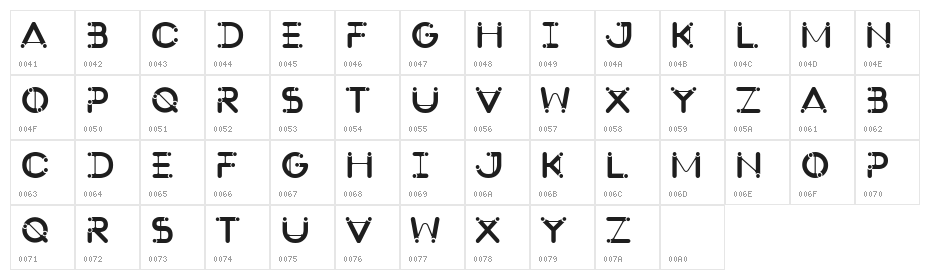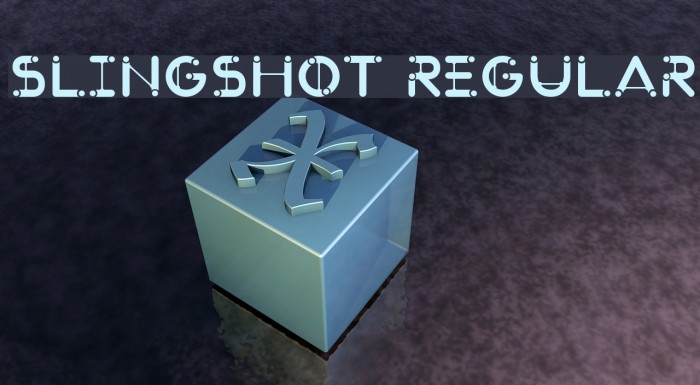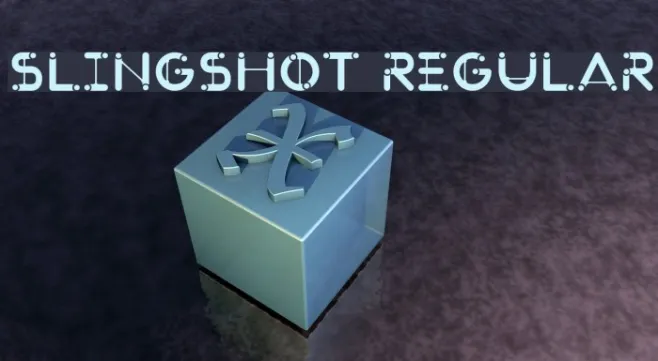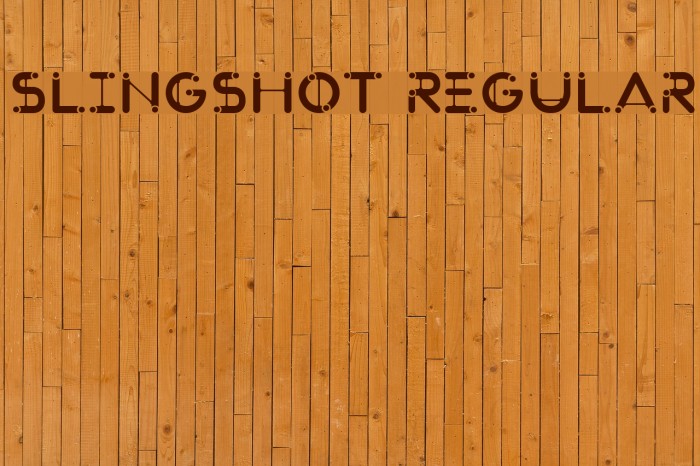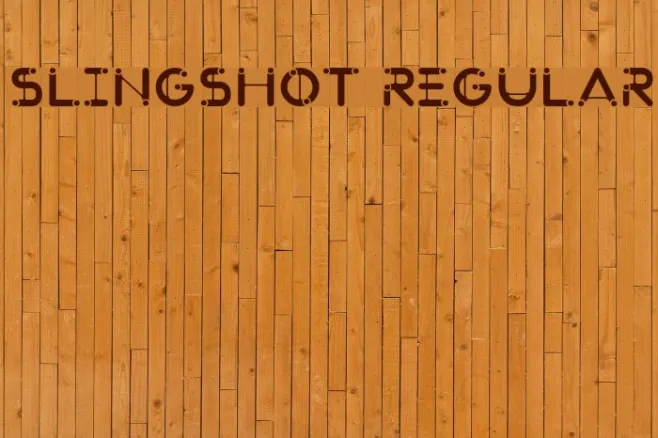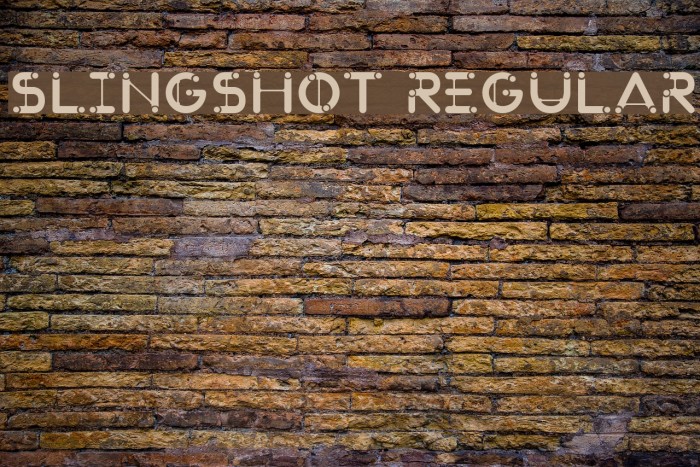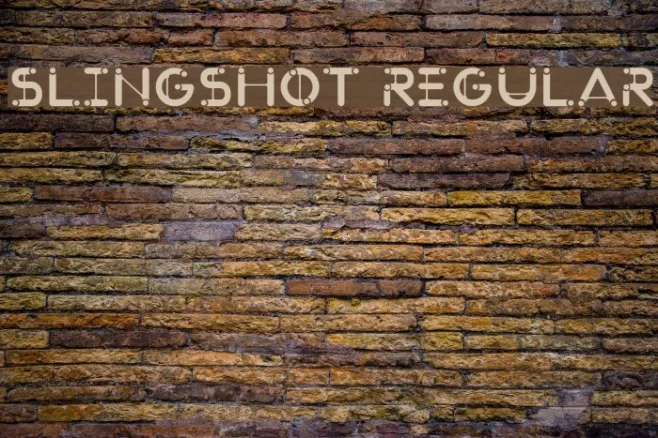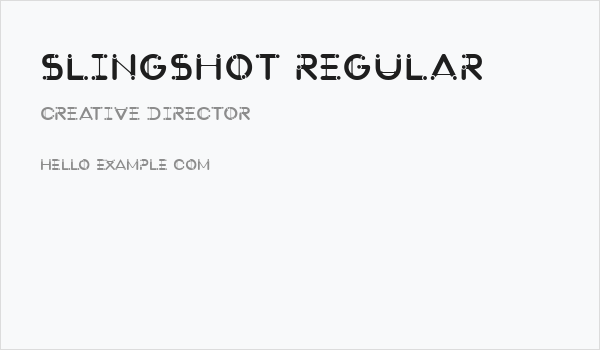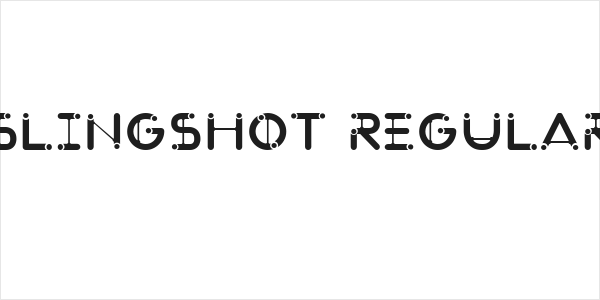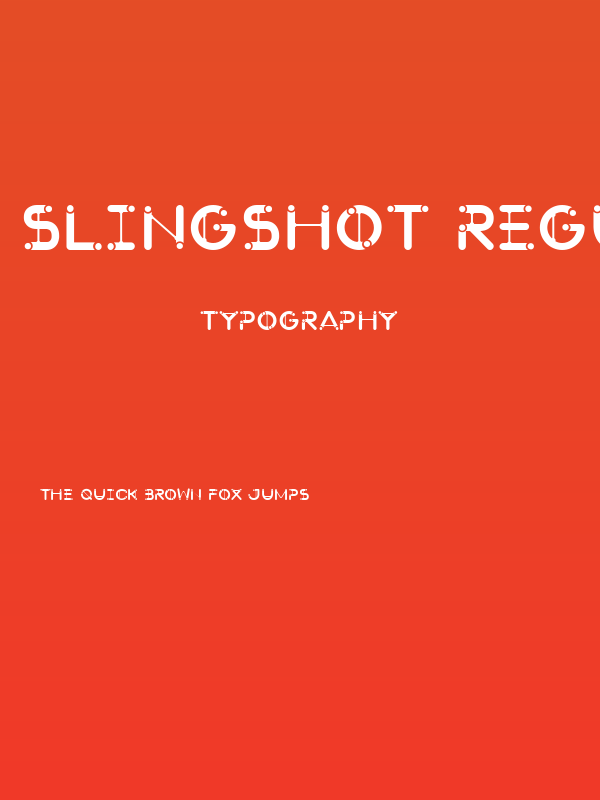
SlingShot Regular Font
SlingShot Regular Description
This font features a unique and playful design, characterized by its use of dots and lines that connect to form each letter. The uppercase letters are bold and geometric, with a modern and futuristic feel. The dots add a decorative element, making the font stand out with its distinctive style. The overall appearance is both structured and whimsical, making it suitable for creative and eye-catching designs. The font maintains consistency in its design across all characters, providing a cohesive look that is both engaging and visually appealing.
| Proposed Projects | Ideal for creative projects such as posters, logos, and branding materials that require a modern and playful touch. |